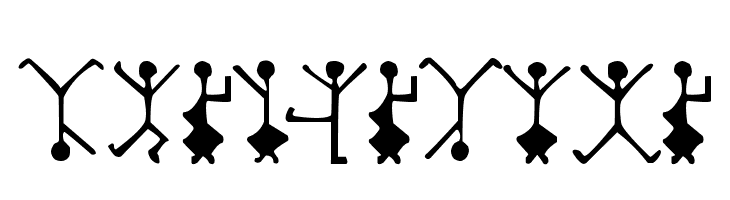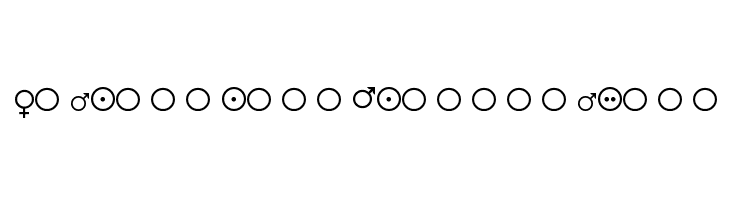
A playful, bold, hand-drawn font with a casual and friendly appearance.
A bold, decorative font with a Western vintage style.
A rounded, playful font with smooth curves and a friendly, modern appearance.
A sleek, modern font with thin lines and a minimalist design.
A bold, Gothic-inspired font with sharp edges and dramatic styling.
A bold, distressed font with a grunge texture, perfect for rugged and edgy designs.
A bold, rounded font with a playful and modern style.
A playful, bubbly font with rounded, cartoonish letterforms.
An organic, tree bark-inspired font with intricate, hand-carved details.
A bold and oblique modern font with smooth, consistent strokes.
设计师偏爱 noah, I.F.C. BOOTHILL, EVERLONG, Dominik Thin and Hetfield Bold,因为其造型干净、适用范围广—— 从品牌识别到落地页、海报都能胜任。